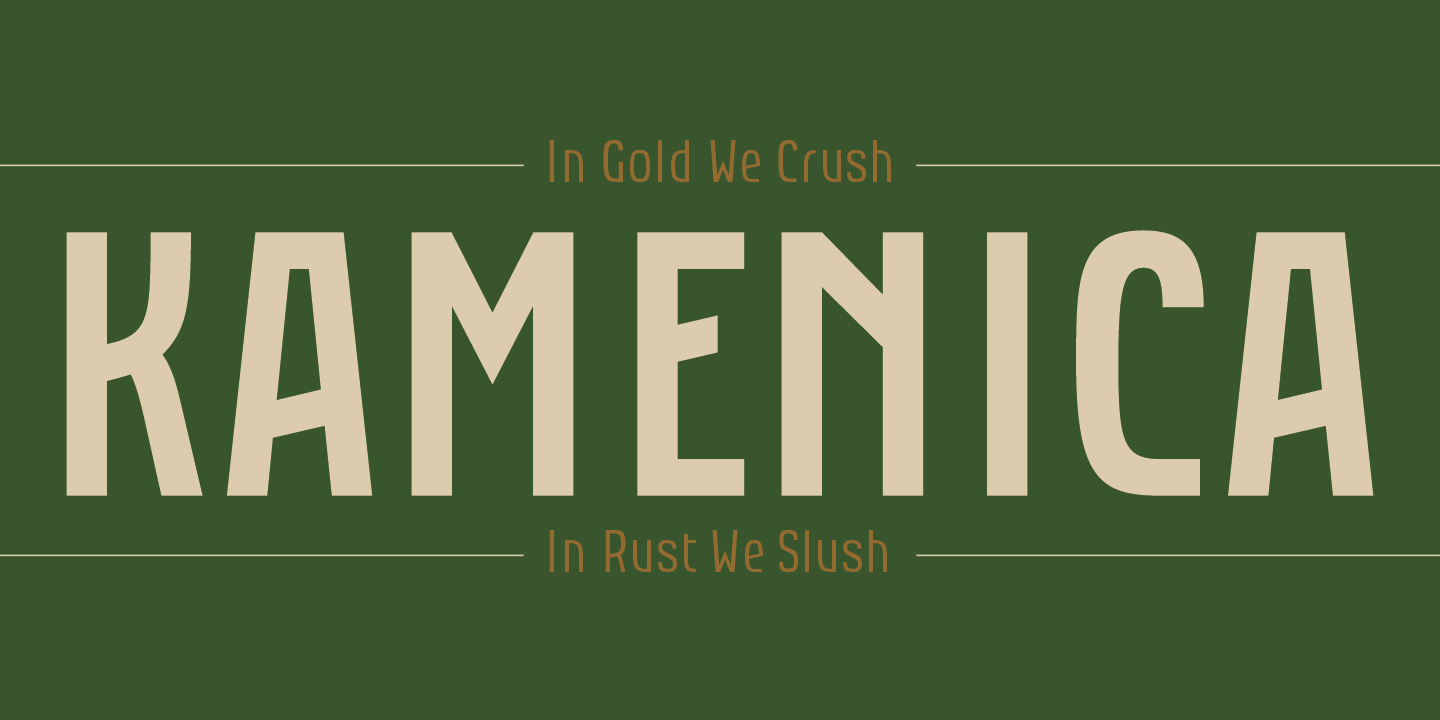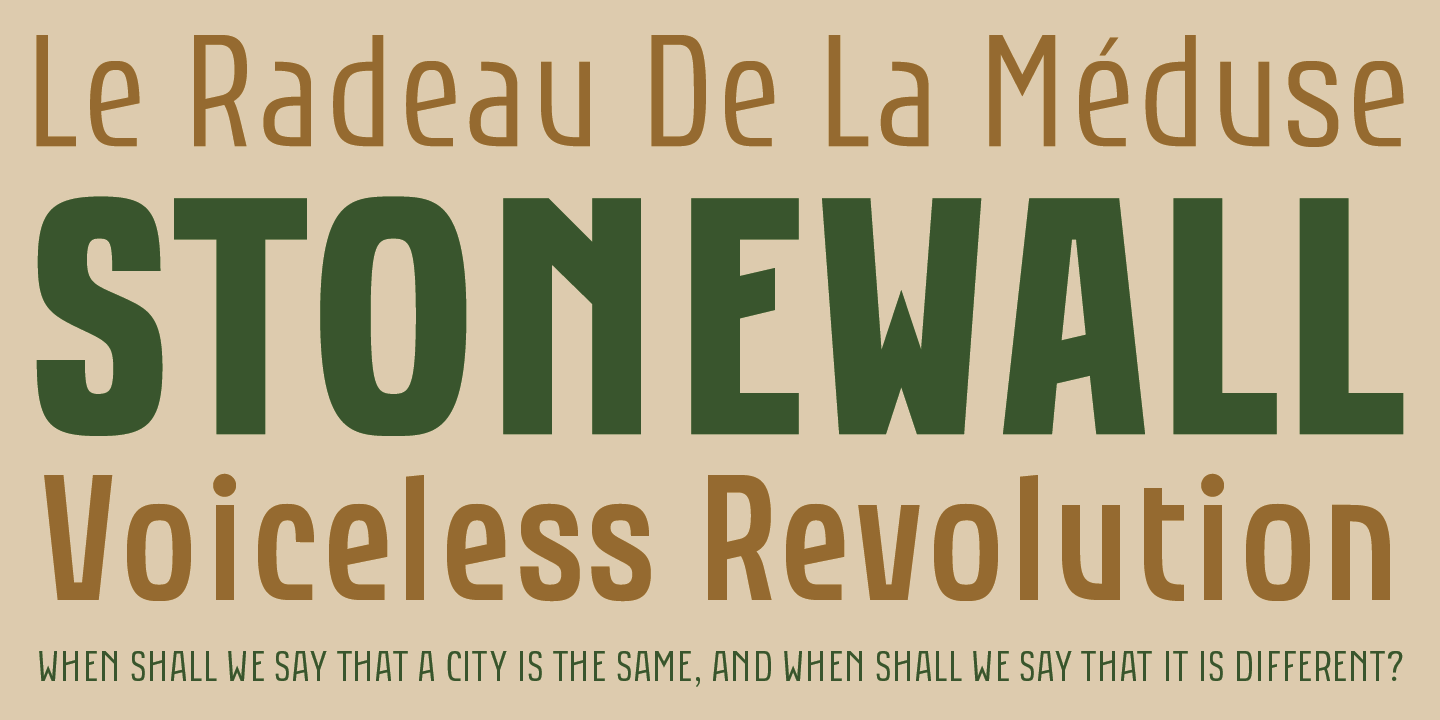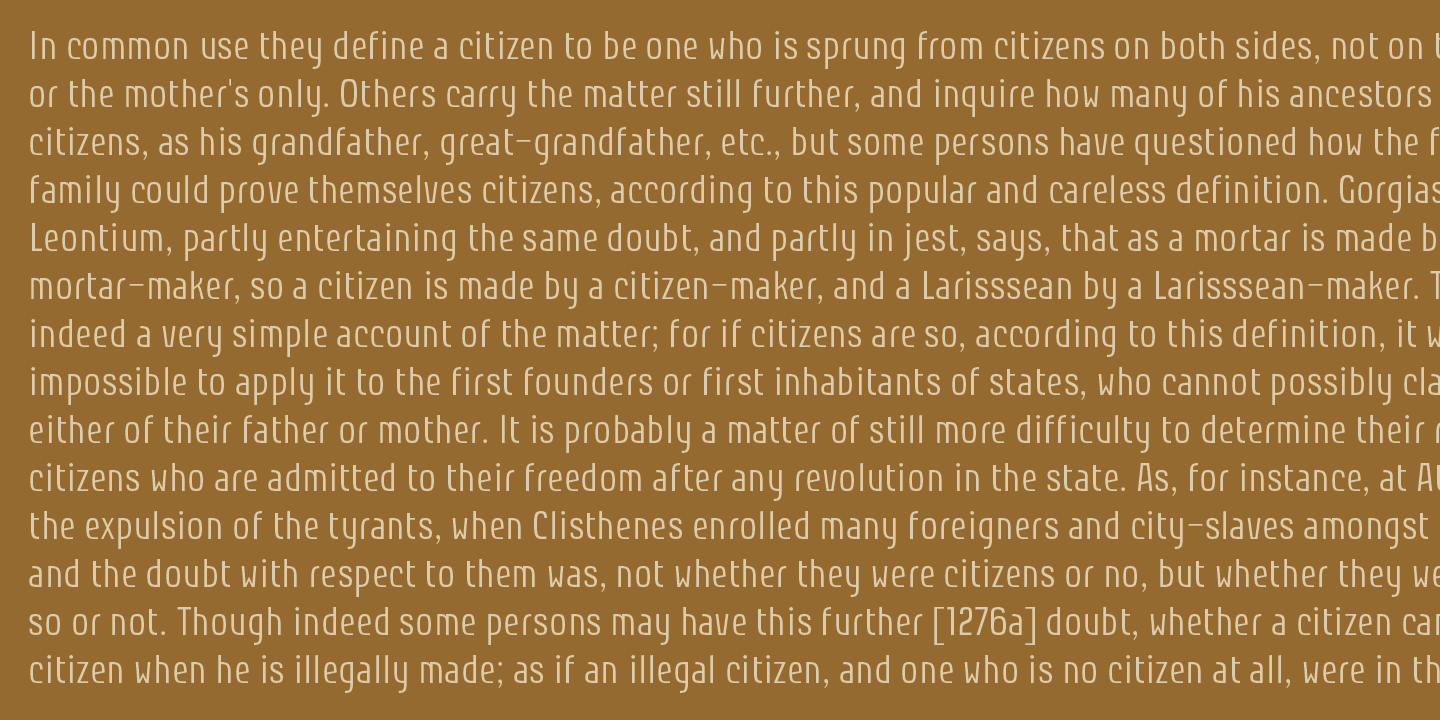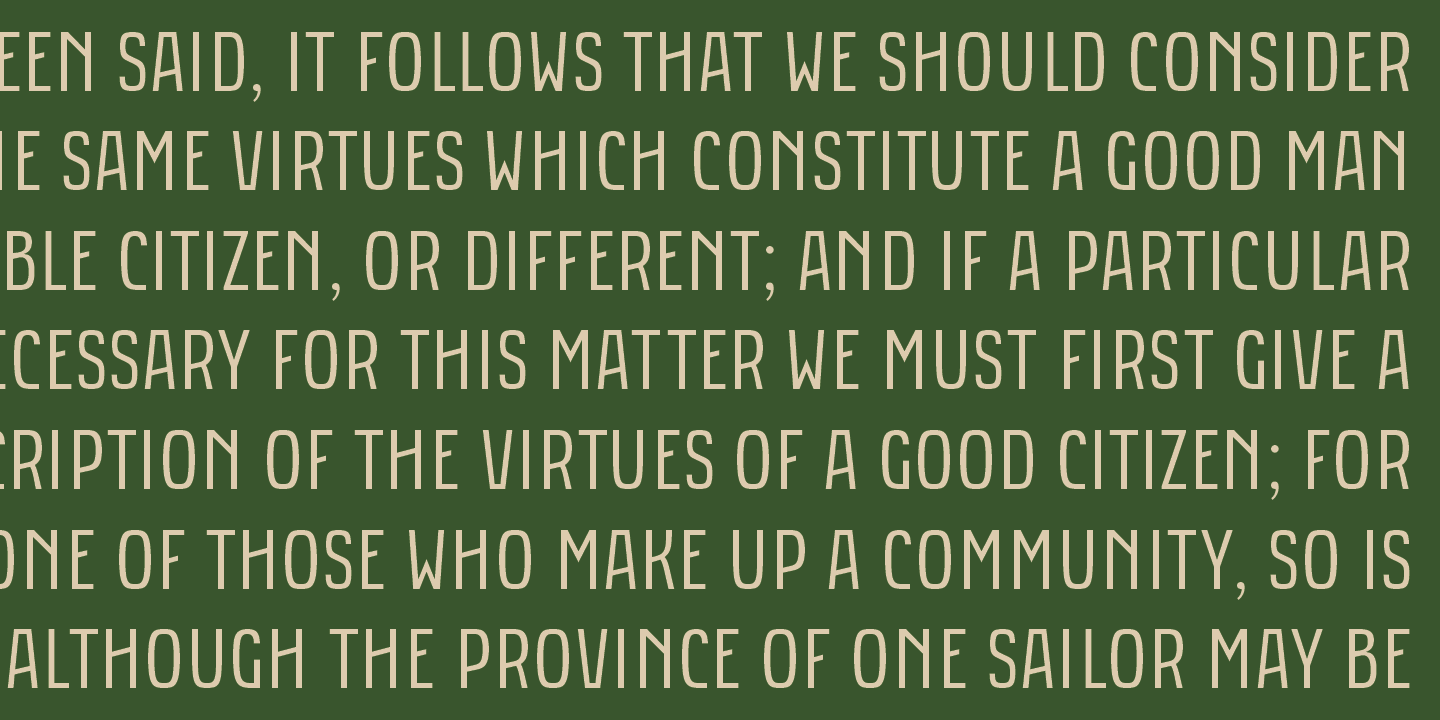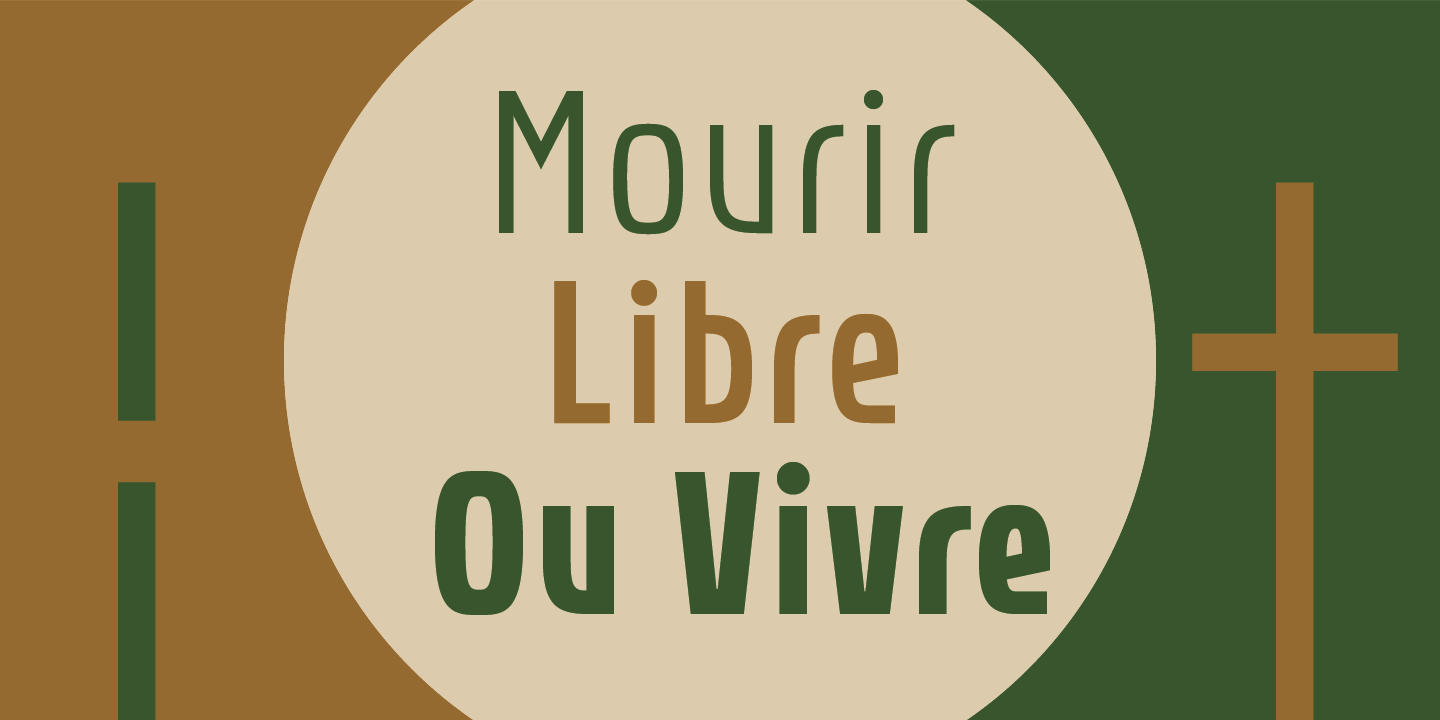
“Kamenica” - named after a beautiful small mountain river in Serbia - is a font family containing 3 weights: Light, Regular and Bold. The Kamenica river is only a few meters wide. Mostly shallow and cold, clear and green, it was the direct inspiration source for the creation of this condensed typeface. As our other typefaces, “Kamenica” also combines traditional shapes with modern forms, tall x-height and a collection of more than 300 glyphs. Comparing the river with the font, we could say that letters are the fishes that lives in the Kamenica river and that the font weights are the seasons in which this river shows most of its own character.